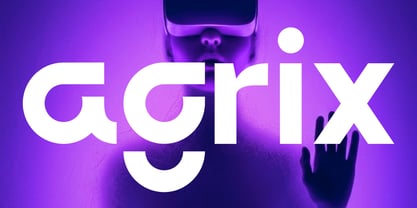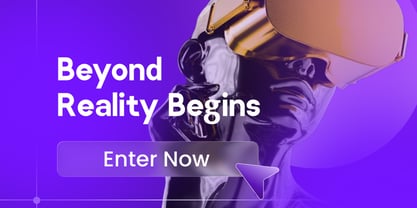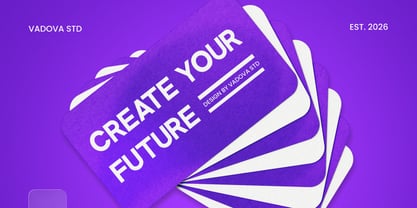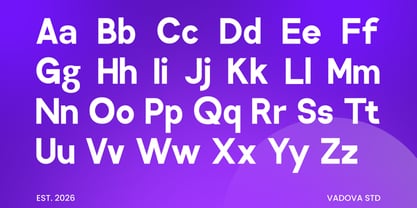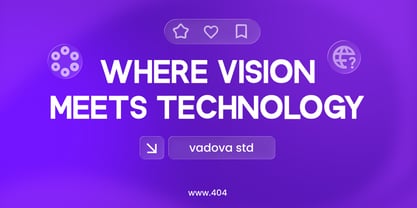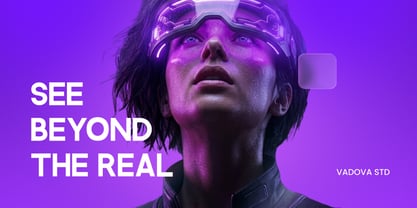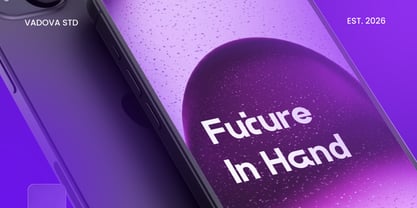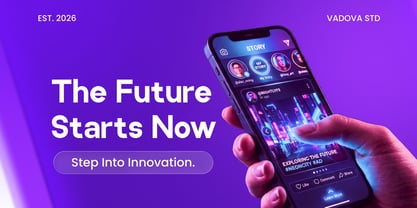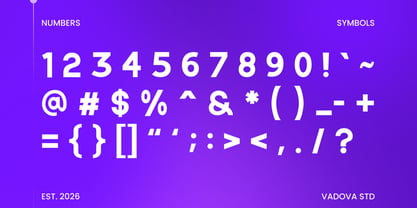
Agrix
by Vadova Std
The Agrix Font Family and published by Vadova Std. Agrix contains 1 styles. More about this family
Agrix is a modern futuristic display sans serif font designed with bold geometric forms and clean contemporary structure. Its balanced proportions, smooth curves, and minimal construction create a strong technological presence that feels modern, innovative, and highly legible. Agrix is highly relevant for technology branding, gaming titles, sci-fi posters, startup logos, futuristic UI design, digital marketing visuals, app interfaces, tech event graphics, modern product branding, and innovation-focused promotional materials that require a bold and futuristic typographic style.